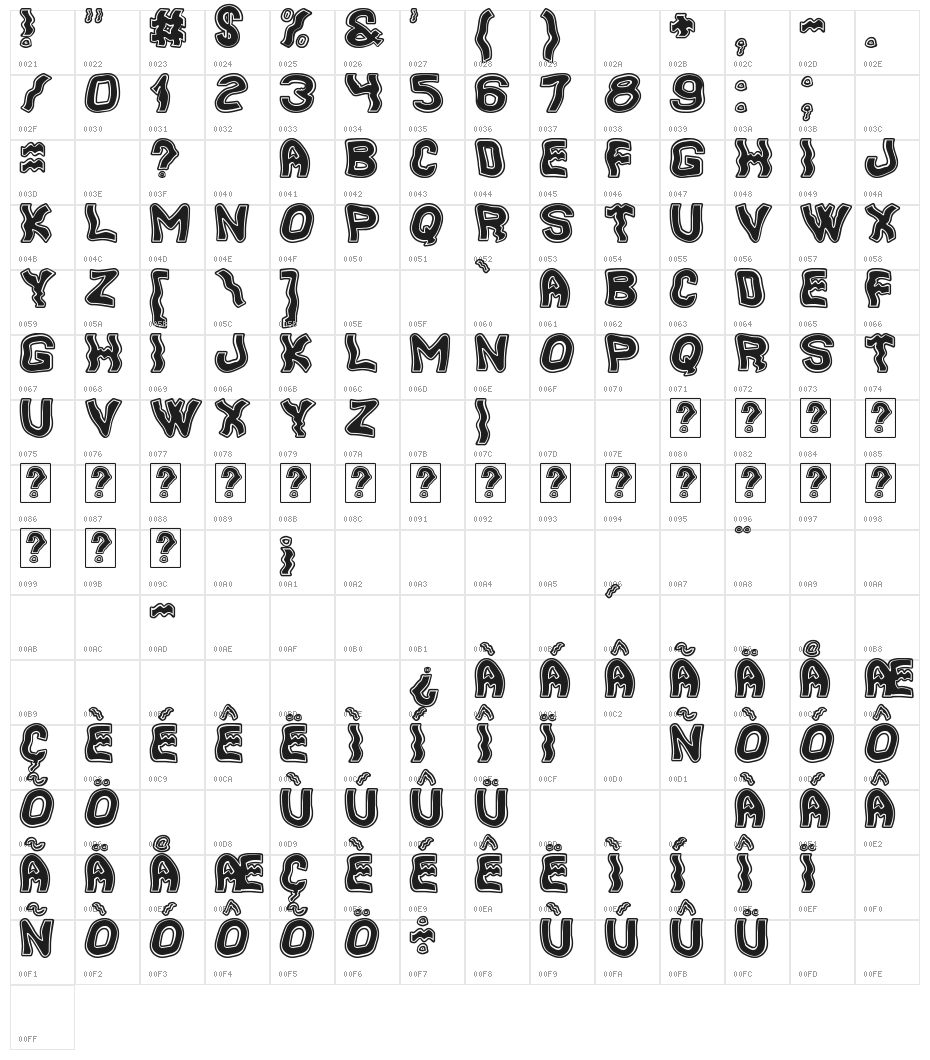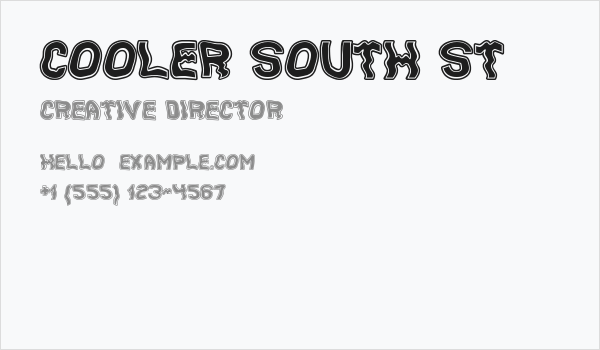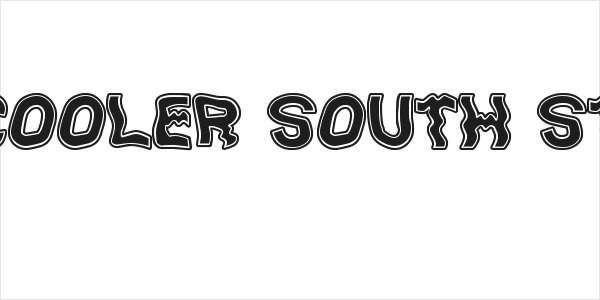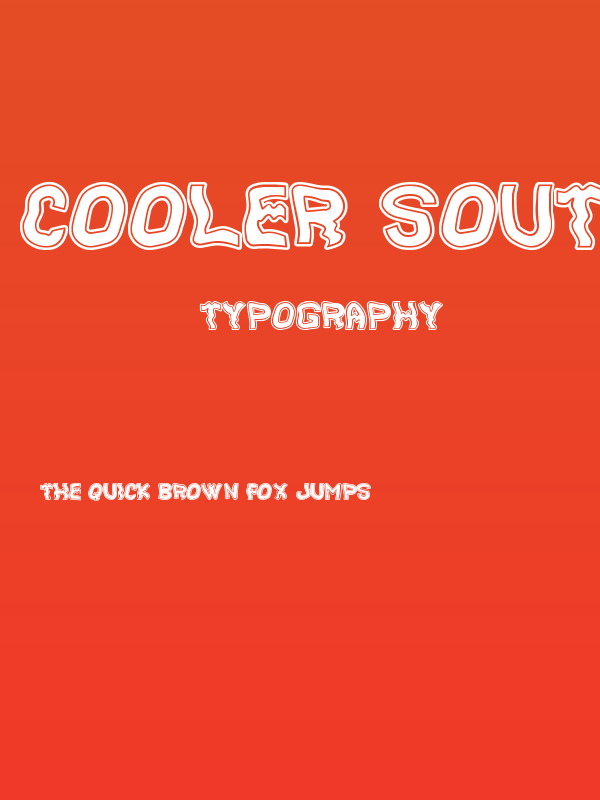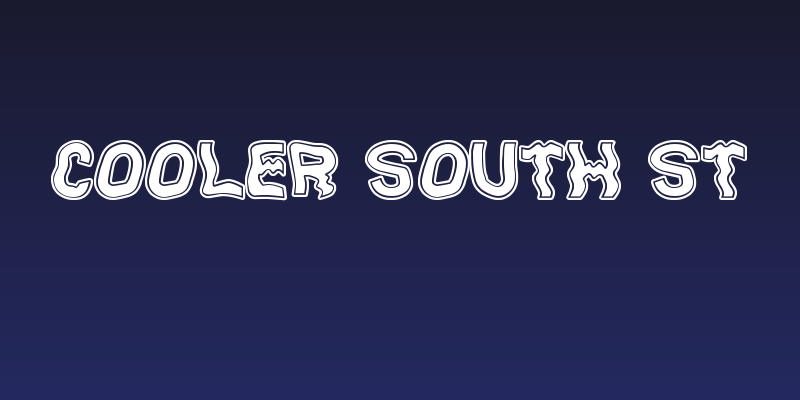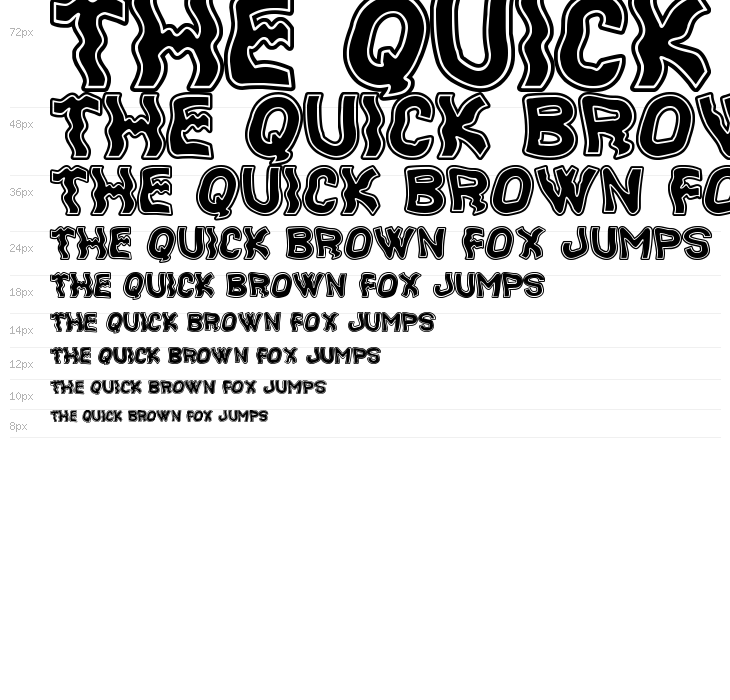
Cooler South St Font
Cooler South St Description
This font features a bold, playful design with a thick outline that gives it a cartoonish and dynamic appearance. The characters are slightly irregular, adding a sense of movement and energy. The uppercase and lowercase letters maintain a consistent style, with exaggerated curves and angles that enhance its whimsical nature. Numbers and special characters follow the same design principles, ensuring uniformity across all elements. The font's boldness and unique style make it stand out, perfect for projects that require a fun and eye-catching typeface.
| Overall Style | Playful, Cartoonish, Dynamic |
| Use Case | Headlines, Posters, Branding |
| Proposed Projects | Ideal for children's books, comic strips, playful branding, and eye-catching posters. |